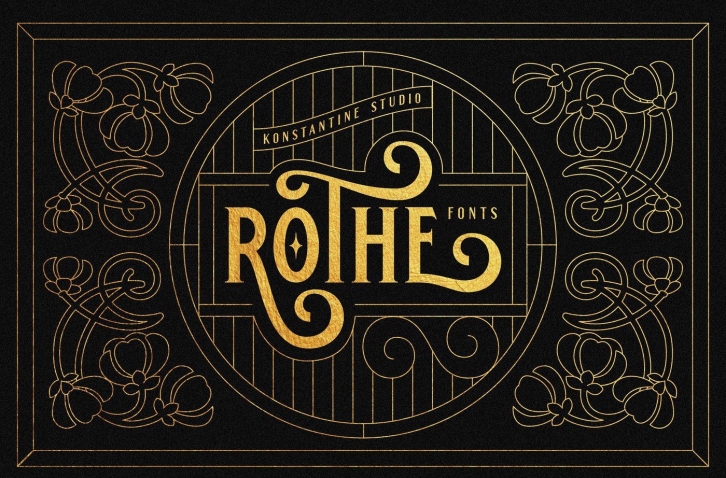
ROTHE - Vintage Luxury Font Download
Included Uppercase, Lowercase, Numbers & Punctuations, Multilanguage Support, Alternates for the Uppercase with swashes and outlined version, and decorative elements in font file as well.
• Rothe Standard
• Rothe Outlined
• Rothe Elements Standard
• Rothe Elements Outlined